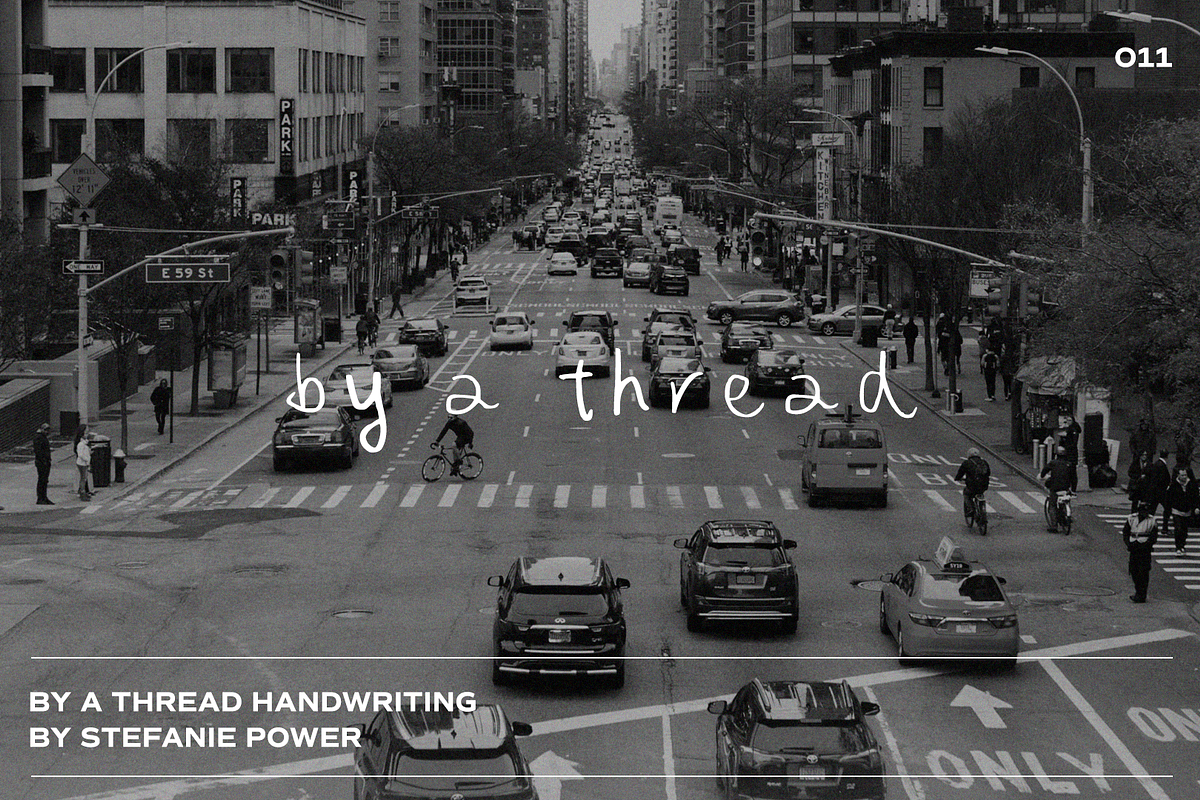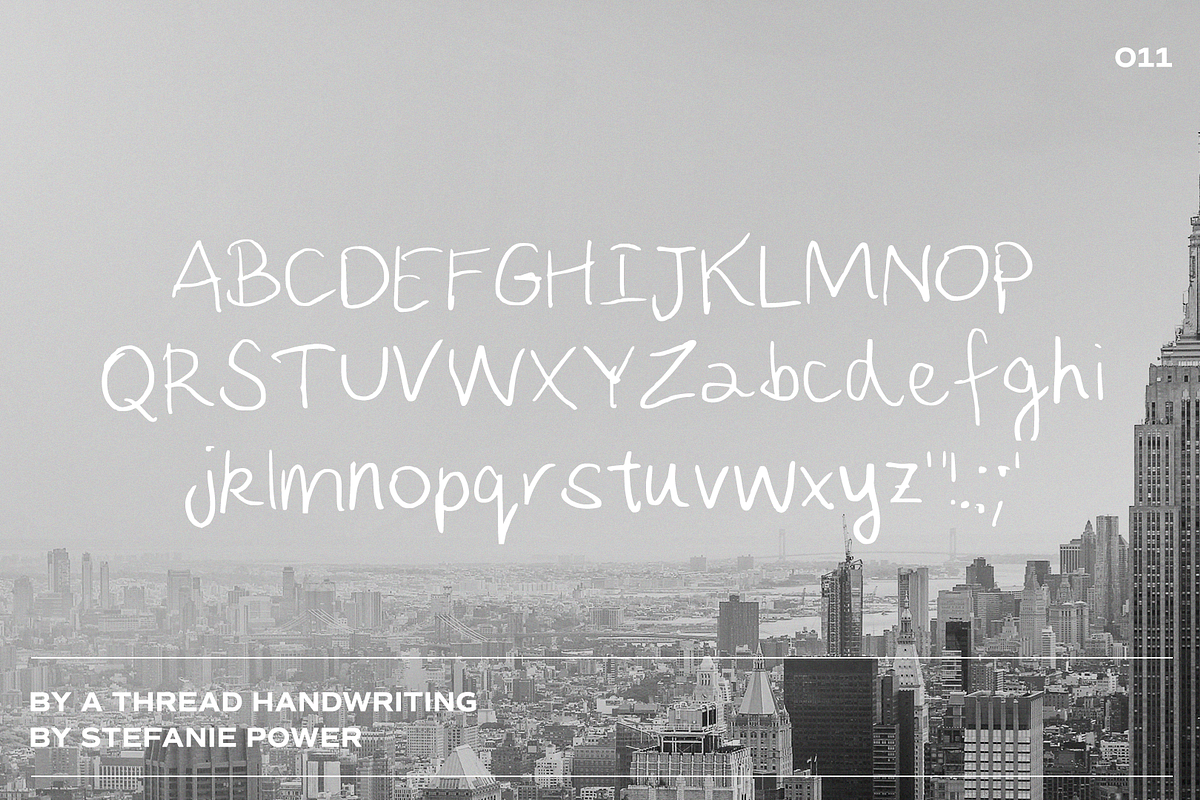
by a thread handwriting | Font
Introducing 'by a thread' - perfect for when you need a realistic looking, messy handwriting font.
by a thread Handwriting • A handwritten script font containing upper & lowercase characters and a range of punctuation and numbers.